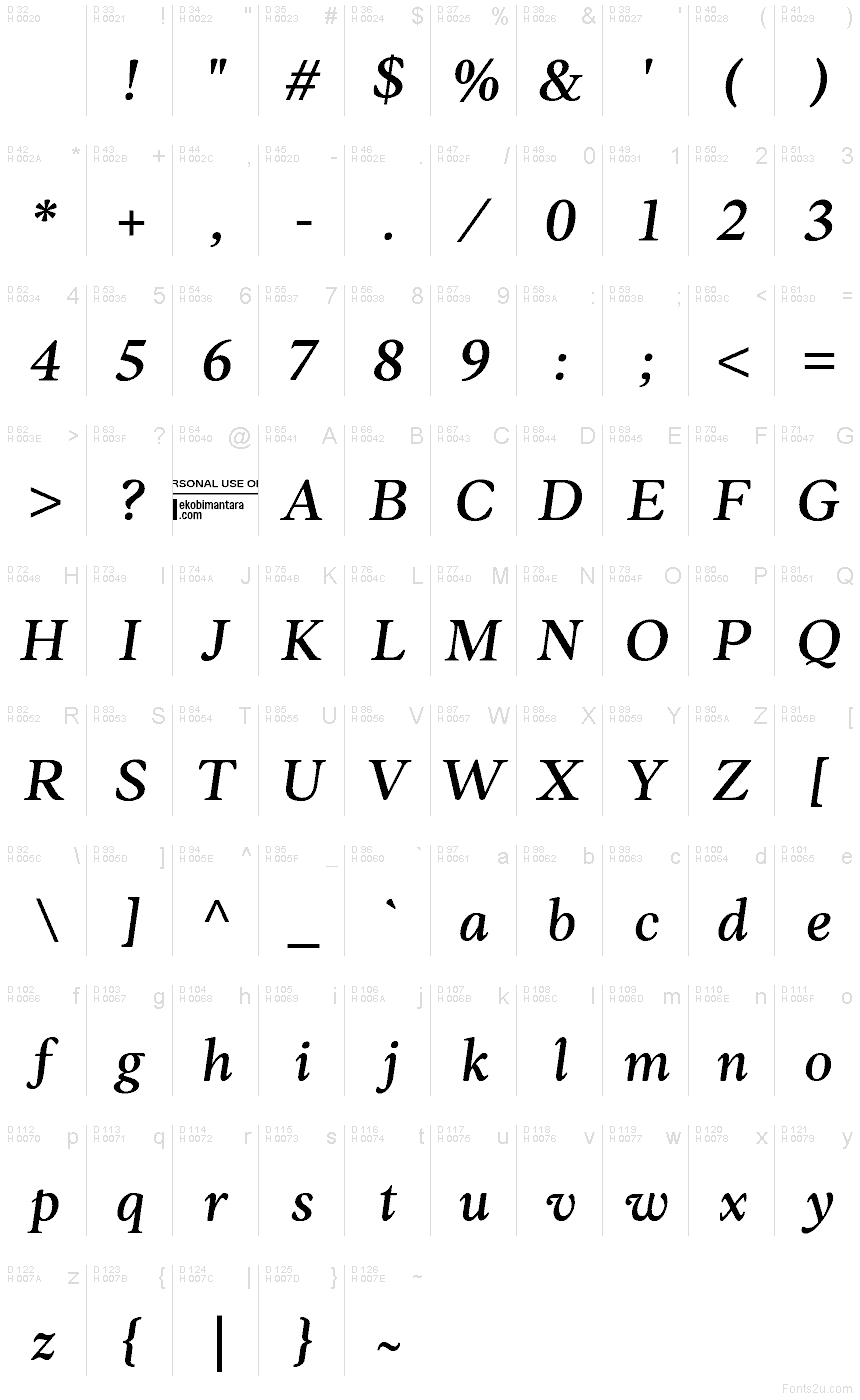
Anko Trial Medium Italic
Anko Medium Italic font by Eko Bimantara is a free italic serif font. For designers who struggle to find an italic that reads cleanly while still feeling expressive, this hits the sweet spot. The Anko family’s italic brings supple, calligraphic motion: tapered strokes, softly chiseled serifs, and a confident forward lean that adds energy without shouting. Counters stay open and spacing is calm, so words flow instead of wobble.
Using Anko Medium Italic, headlines, editorial subheads, pull quotes, brand marks, packaging, menus, and event materials gain warmth and poise. The rhythm is lively but disciplined, making short lines sing and longer texts stay legible. Pair this free font with Anko Regular for body copy or a neutral grotesk; give it a touch of extra line spacing to let those curves breathe.